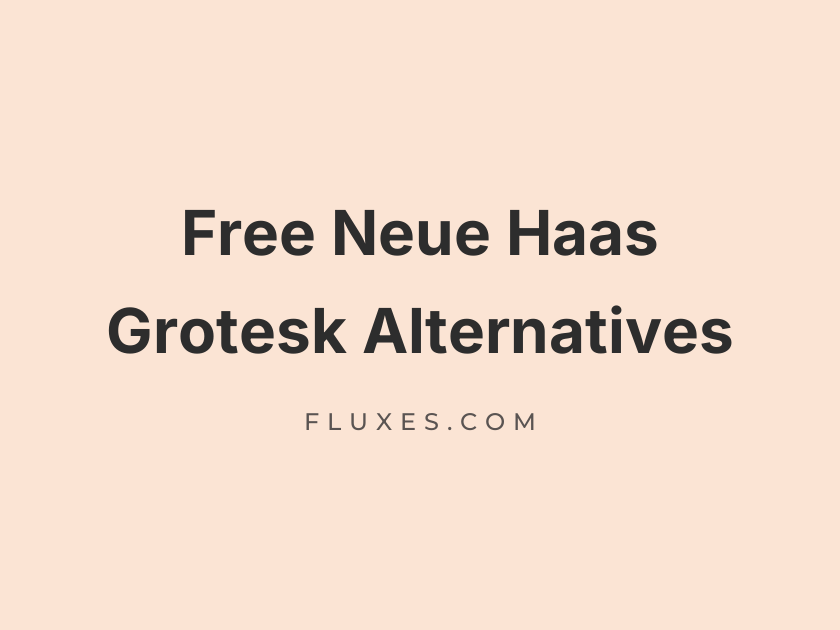
14 Best Free Fonts Alternatives to Neue Haas Grotesk
Neue Haas Grotesk is the font that started the whole Swiss grotesque revival, the tighter, more refined precursor to Helvetica itself. Licensing it properly can be expensive, which sends a lot of designers looking for free fonts with the same cool, neutral geometry and crisp apertures. Google Fonts has matured a great deal in this territory, and several families now capture that mid-century Swiss feeling without costing a cent.
The options below range from near-clones built specifically to fill the Helvetica-shaped gap to grotesques with their own personality that still slot into the same clean, editorial, corporate, or UI contexts.
Clean grotesque type for interfaces and branding systems
Inter was drawn from the ground up for screens, and it shows in the generous x-height and the way letterforms stay legible even at tiny UI sizes. It lacks some of the warmth of the original Haas cut, but as a free alternative to Helvetica and Neue Haas Grotesk for product design, dashboards, and app interfaces, nothing else in the free world is as battle-tested.
Bold, versatile grotesque built for headlines and text
Archivo was engineered as a flexible grotesque family covering everything from tight display headlines to workhorse body copy, and its proportions sit close to the Haas/Helvetica lineage without feeling like a copy. It handles branding, editorial layouts, and long-form web text equally well, which makes it one of the more dependable free substitutes when a client asks for “something like Helvetica but better.”
Friendly grotesque for clean modern typography
Work Sans softens the Haas mold just slightly, rounding a few corners and opening the counters for better screen rendering at small sizes. It reads as approachable rather than corporate, so it suits startups and editorial sites that want Swiss cleanliness without the coldness.
Neutral, no-nonsense type for interfaces and reports
Built originally for U.S. government digital services, Public Sans was designed to disappear into the background and let content lead. That neutrality is exactly what makes it a strong Neue Haas Grotesk stand-in for dense interfaces, forms, and reports where the type should never call attention to itself.
Corporate grotesque with a distinct engineered feel
IBM Plex Sans carries a bit more character than a strict Helvetica clone, with slightly humanist curves and a few quirky letterforms like the double-story “a.” It pairs nicely with IBM Plex Mono for technical documentation, and it holds up well across an entire brand system from print to code.
Familiar grotesque type for apps and digital products
Roboto is probably the most-used free grotesque on the planet, and while its mechanical curves diverge a little from the Haas ideal, its sheer versatility across weights and its rock-solid screen rendering make it a safe fallback. Designers who need Helvetica-like neutrality with guaranteed cross-platform support keep coming back to it.
Modern grotesque with sharp geometric precision
Manrope trims its curves down to something crisp and slightly geometric, giving headlines a confident, almost architectural edge. At smaller sizes it stays admirably clear, though its personality is a touch cooler and more modern than the original Haas warmth.
Distinct grotesque type with quirky monospaced roots
Derived from a monospaced source, Space Grotesk keeps unusual proportions and a few idiosyncratic details in the lowercase that give it more personality than a typical neutral grotesque. It works best as a display or headline face for tech and startup branding rather than as a body-text substitute for Neue Haas Grotesk.
Balanced Swiss-style grotesque for branding and web
Hanken Grotesk leans directly into the Swiss grotesque tradition, with even stroke widths and calm, businesslike letterforms that feel right at home in corporate identity work. It is one of the newer additions to Google Fonts and deserves more attention than it currently gets.
Warm grotesque type with a distinct personality
Karla brings a slightly rounded warmth to the grotesque formula, trading some of the Haas rigidity for friendliness. It shines in editorial contexts and smaller branding projects where a strictly neutral face would feel too sterile.
Be Vietnam Pro
Clean geometric grotesque for interfaces and print
Be Vietnam Pro
Be Vietnam Pro combines geometric bones with grotesque proportions, giving it a slightly more contemporary feel than a straight Helvetica alternative. It reads well in both UI copy and larger display use, and its wide weight range makes it flexible across an entire brand system.
Instrument Sans
Sharp contemporary grotesque for modern brand identities
Instrument Sans
A newer release with tight spacing and confident, no-frills letterforms, Instrument Sans feels closer in spirit to the crisp commercial grotesques than many older free fonts. It suits modern web design and branding work that wants a fresher face than the well-worn Helvetica-alikes.
If you need a display companion, Space Grotesk or Manrope can sit above body copy set in Work Sans or Figtree for good contrast without clashing.
Always test a chosen family at your actual body-text size before committing, since grotesques vary widely in x-height and spacing even when they look similar in large headline samples.
Any of these free fonts from Google Fonts can carry the clean, rational spirit of Neue Haas Grotesk into a modern project, whether the goal is a corporate identity, a product interface, or an editorial website that wants that timeless Swiss clarity.